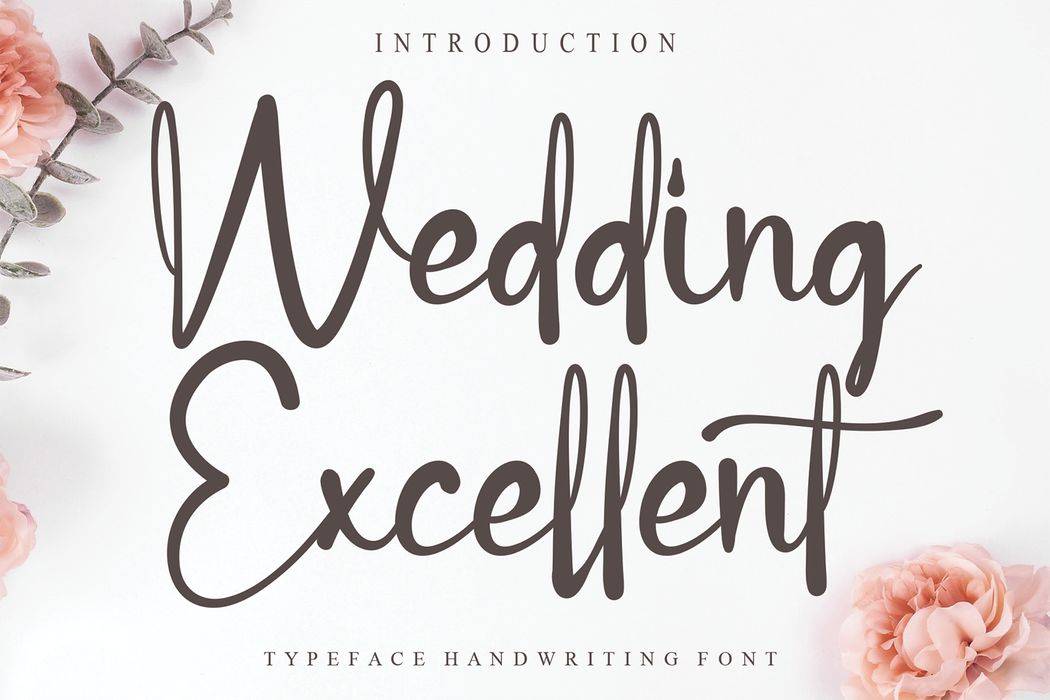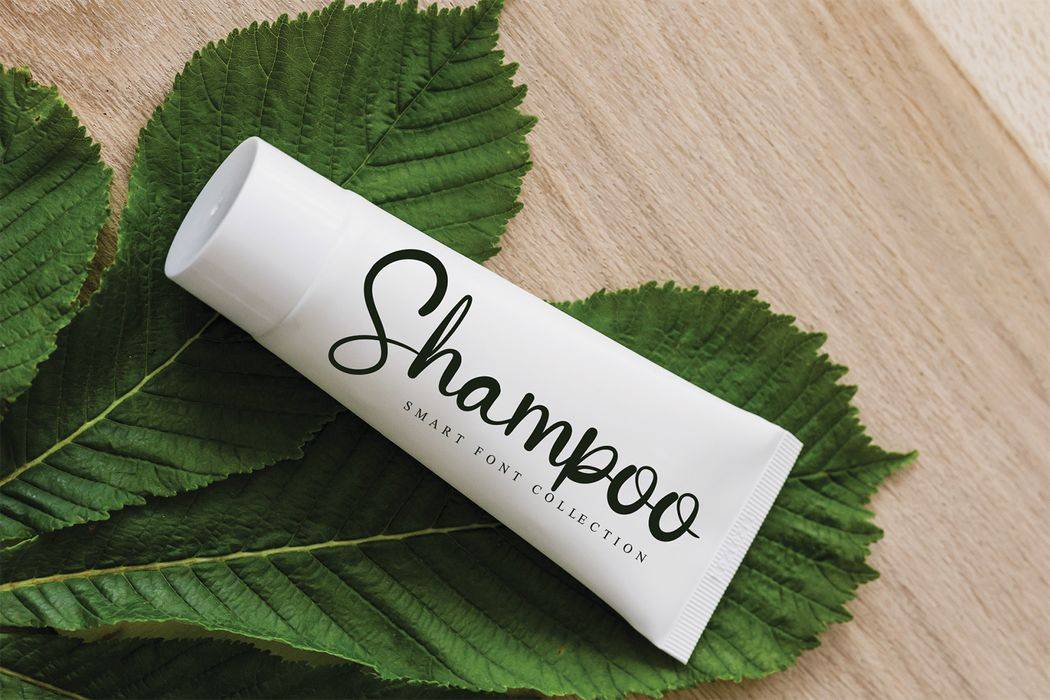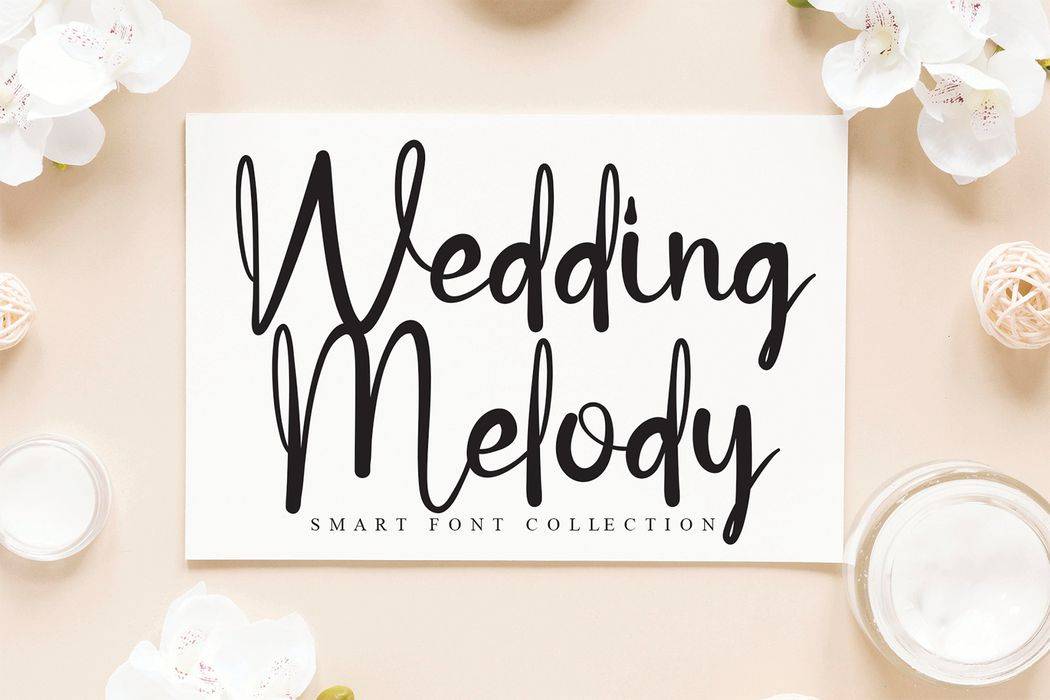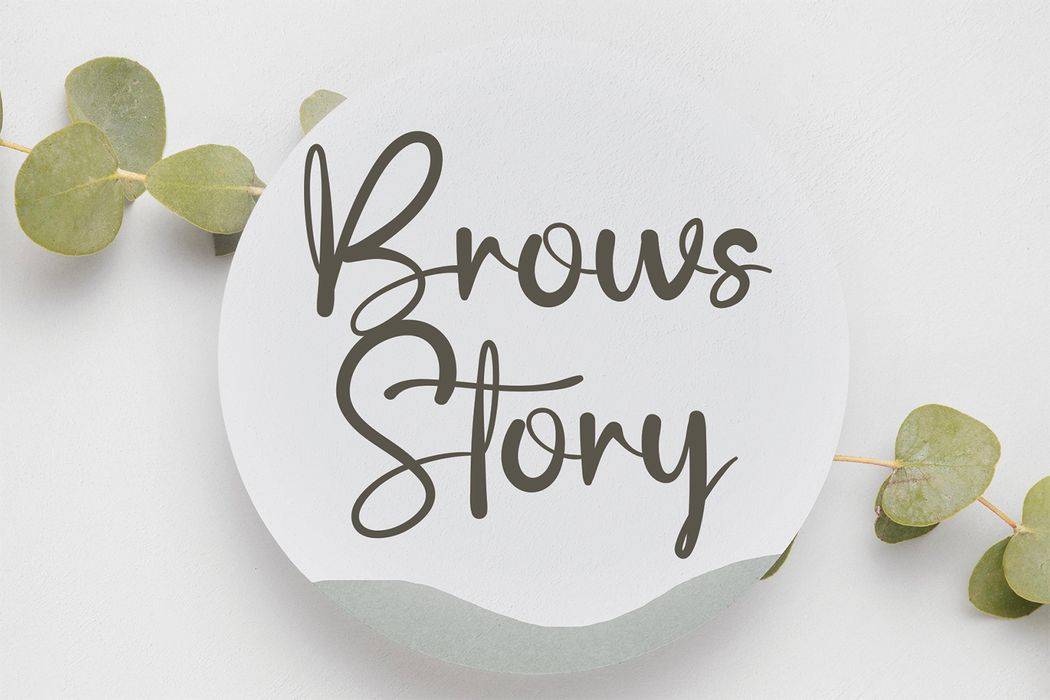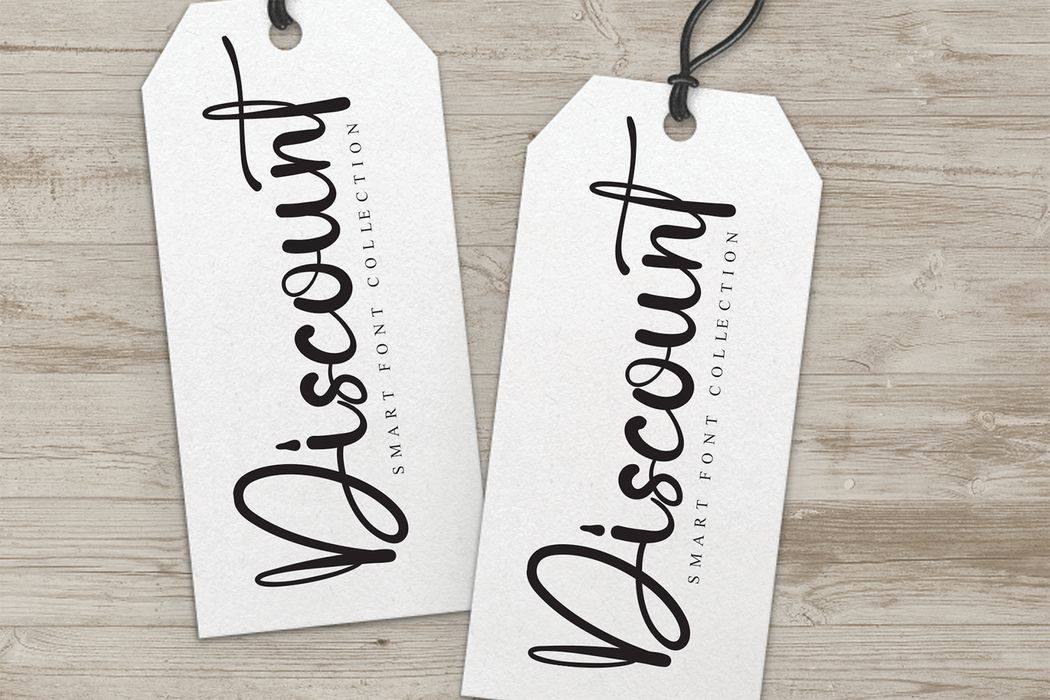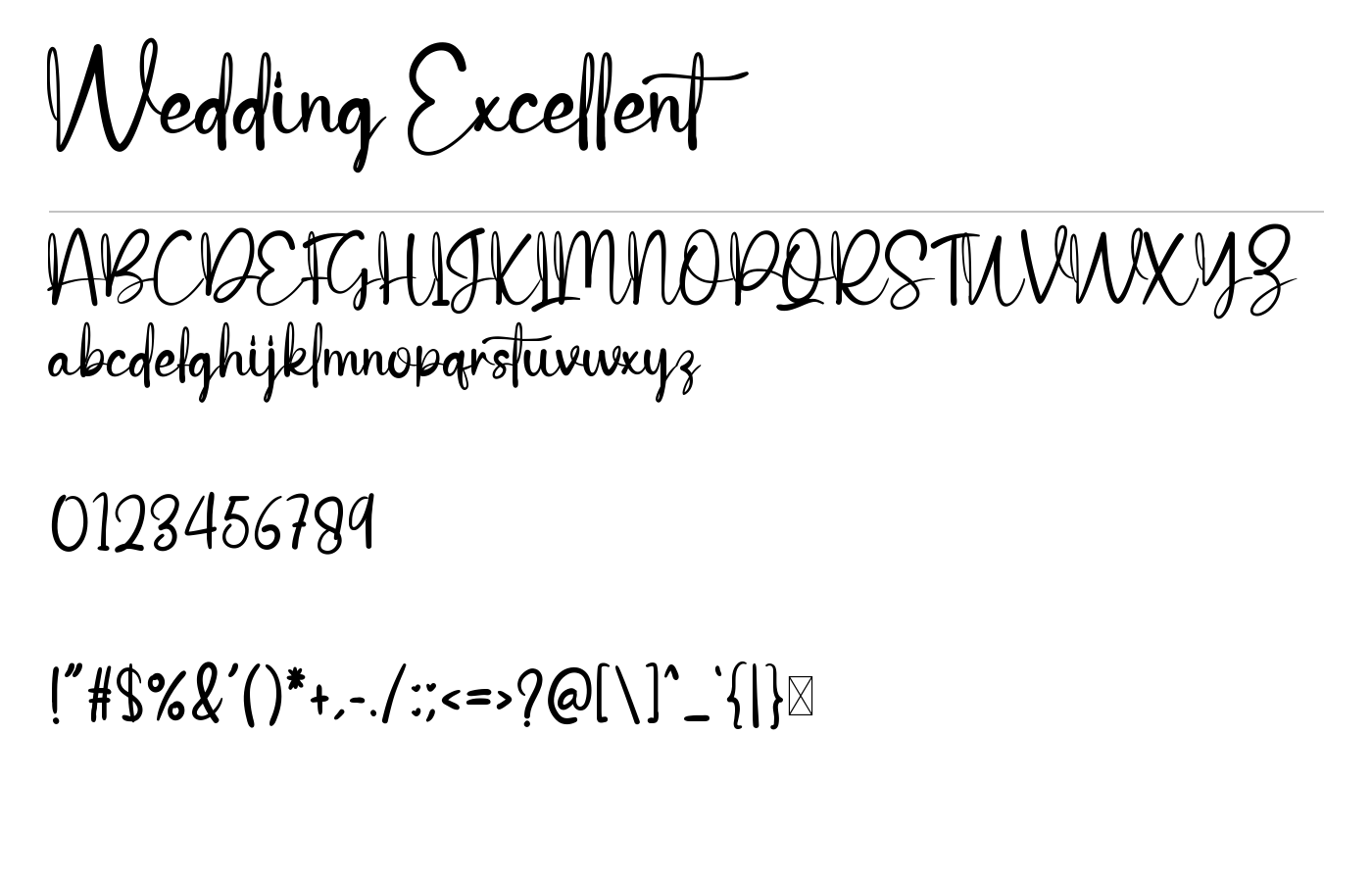
Wedding Excellent is a playful handwritten script font with a lively, informal style that combines tall, narrow letterforms with smooth, flowing strokes. Its unique, slightly uneven characters with whimsical loops and flourishes make it perfect for adding a personal, creative touch to wedding invitations, branding, and feminine designs. This font works well in display settings where a charming, casual elegance is desired, bringing warmth and personality to your projects.
Wedding Excellent Font
About Wedding Excellent Font